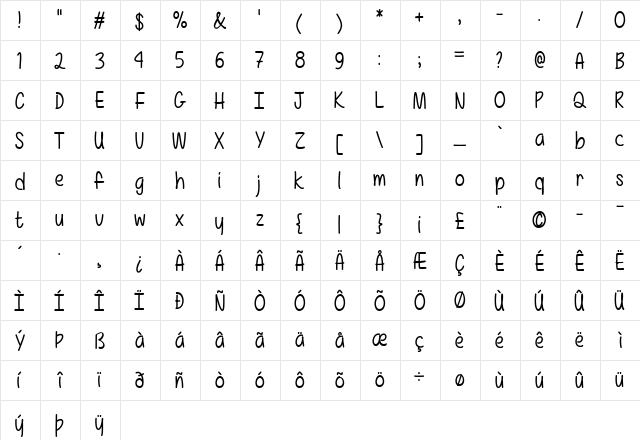
Mf Really Awesome Regular
| Foundry | Misti's Fonts (Misti Hammers) |
| Designer | Misti's Fonts (Misti Hammers) |
Design Context for Mf Really Awesome Typeface
Mf Really Awesome offers clean, dependable letterforms without strong stylistic allegiance, making it a practical choice for designers who need flexibility.